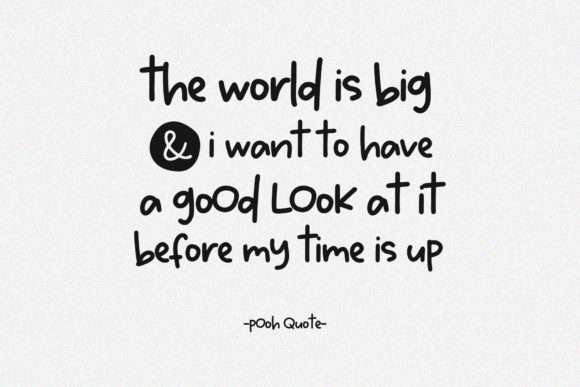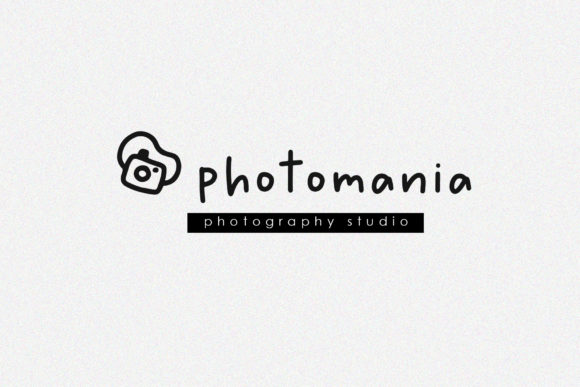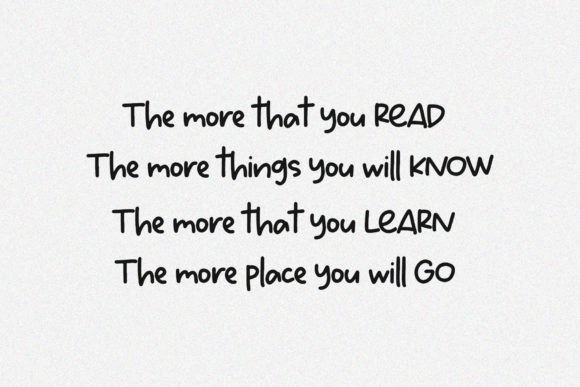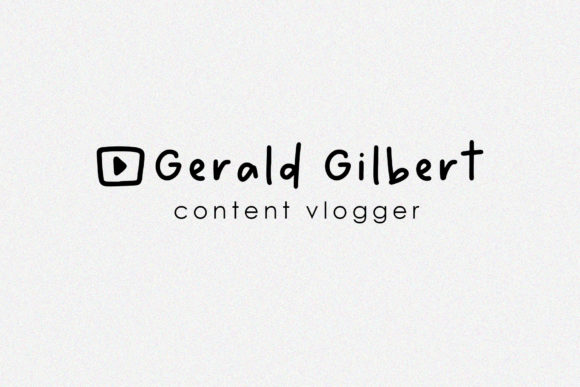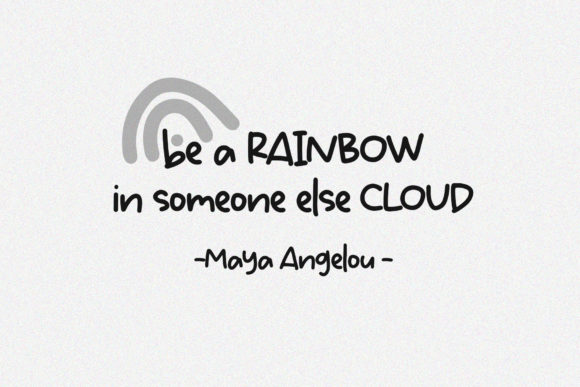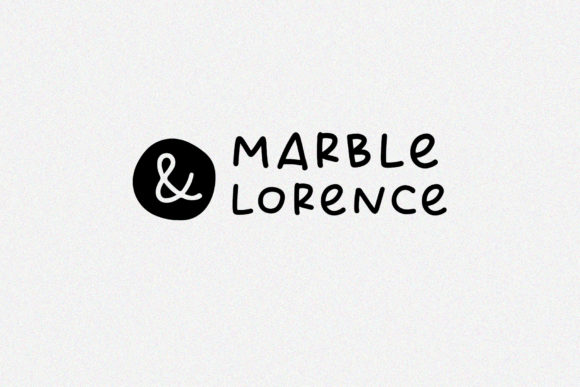
Introducing Block Note Font: The Warm and Friendly Handwritten Font for Designers and Crafters
Are you tired of using the same old fonts for your design projects? Do you want to add a personal touch to your logos, branding, and social media graphics? Look no further than Block Note Font, a warm and friendly handwritten font that’s perfect for designers and crafters alike. In this article, we’ll take a closer look at Block Note Font and explore its features, benefits, and uses.
What is Block Note Font?
Block Note Font is a beautiful, handwritten font that’s designed to add a touch of warmth and personality to your design projects. With its smooth, flowing lines and rounded edges, Block Note Font is the perfect fit for creating logos, branding materials, social media graphics, and crafty DIY projects.
Features of Block Note Font
So, what makes Block Note Font so special? Here are just a few of its key features:
- Warm and Friendly: Block Note Font has a warm and friendly feel that’s perfect for creating designs that are approachable and inviting.
- Handwritten: This font is carefully crafted to mimic the look and feel of handwritten text, giving your designs a personal touch.
- Versatile: Block Note Font is highly versatile and can be used for a wide range of design projects, from logos and branding to social media graphics and crafty DIY projects.
- Easily Readable: Despite its handwritten feel, Block Note Font is highly legible and easy to read, making it perfect for use in body text and captions.
Benefits of Using Block Note Font
So, why should you choose Block Note Font for your design projects? Here are just a few of the benefits of using this amazing font:
- Adds a Personal Touch: Block Note Font adds a personal touch to your designs, making them stand out from the crowd and helping you connect with your audience.
- Perfect for Branding: With its warm and friendly feel, Block Note Font is perfect for creating branding materials that are approachable and inviting.
- Great for Social Media: Block Note Font is highly legible and easy to read, making it perfect for use in social media graphics and captions.
- Ideal for Crafty DIY Projects: Whether you’re creating handmade cards, gift tags, or other crafty DIY projects, Block Note Font is the perfect choice.
Uses of Block Note Font
So, what can you use Block Note Font for? The possibilities are endless! Here are just a few ideas to get you started:
- Logos and Branding: Use Block Note Font to create logos, business cards, and other branding materials that are approachable and inviting.
- Social Media Graphics: Add a personal touch to your social media graphics, including Facebook posts, Instagram captions, and Twitter headers.
- Crafty DIY Projects: Use Block Note Font to add a personal touch to your handmade cards, gift tags, and other crafty DIY projects.
- Stationery and Invitations: Create beautiful stationery and invitations that are perfect for weddings, birthdays, and other special occasions.
In conclusion, Block Note Font is a warm and friendly handwritten font that’s perfect for designers and crafters alike. With its smooth, flowing lines and rounded edges, Block Note Font adds a personal touch to any design project. Whether you’re creating logos, branding materials, social media graphics, or crafty DIY projects, Block Note Font is the perfect choice. So why wait? Download Block Note Font today and start creating beautiful, unique designs that stand out from the crowd!